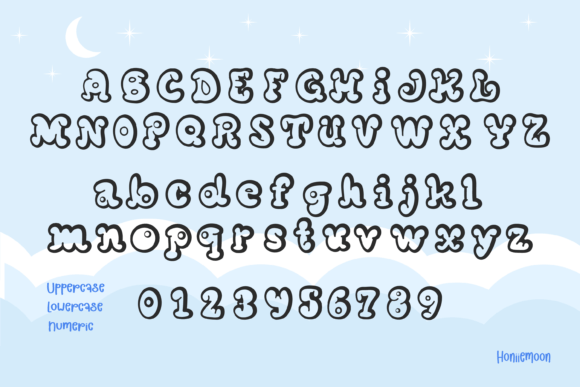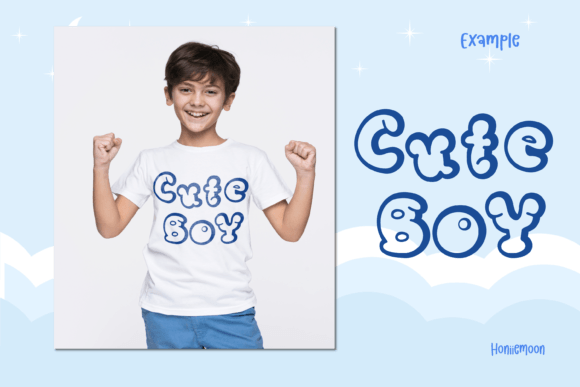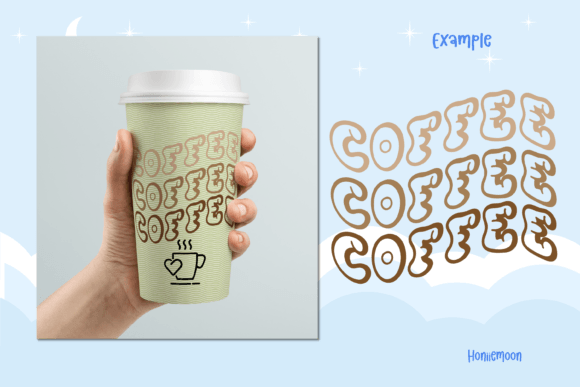
Discover the Joy of Baby Kiddie Font
Have you ever been working on a project and suddenly, a burst of creativity hits you? You envision a playful, whimsical design that captures the essence of childhood innocence. That’s exactly what happens when you unleash the magic of the Baby Kiddie Font. This charming display font is designed to add a touch of fun and personality to any project, making it perfect for designers who want to bring a smile to their audience’s faces.
Baby Kiddie Font is more than just a font – it’s an experience. With its unique characters and playful style, it’s the perfect choice for designers who want to create memorable and engaging designs. Whether you’re working on a children’s book, a birthday card, or a marketing campaign, Baby Kiddie Font is sure to add a touch of whimsy and delight to your project.
Baby Kiddie Font Key Features
- Font Family: Baby Kiddie Font is a sans-serif font family designed for children’s books and educational materials.
- Unique Characteristics: The font features rounded edges, gentle curves, and a playful feel, making it an ideal choice for children’s content.
Designer Review: Baby Kiddie Font
I recently had the chance to work with Baby Kiddie Font, and I must say, it’s an interesting choice. Here are my honest thoughts:
- Fun and playful vibe: The font’s rounded edges and childlike design make it perfect for kids’ products, educational materials, and even some advertising campaigns.
- Easy to read: Despite its playful nature, Baby Kiddie Font is surprisingly clear and easy to read, even at smaller font sizes.
- Customization options: The font comes with a range of weights, from Light to Bold, which allows for some flexibility in design.
- Limited versatility: Baby Kiddie Font is best suited for a specific type of design, and it may not be the best choice for more formal or professional projects.
- Lack of sophistication: Some designers may find the font’s design too childish or lacking in sophistication for certain applications.
- Not ideal for long blocks of text: The font’s playful nature makes it more suitable for short phrases or headings, rather than long blocks of text.
Overall, Baby Kiddie Font is a fun and playful choice for specific design projects. While it may not be the best choice for every project, it’s definitely worth considering for the right application. With its customization options and easy readability, it’s a solid choice for designers looking to add some personality to their work.
Use the Baby Kiddie Font for children’s party invitations, nursery decor, and educational materials. It’s also suitable for social media graphics, advertisements, and promotional materials targeting a young audience. Experiment with different font combinations and styles to create a unique and eye-catching design.